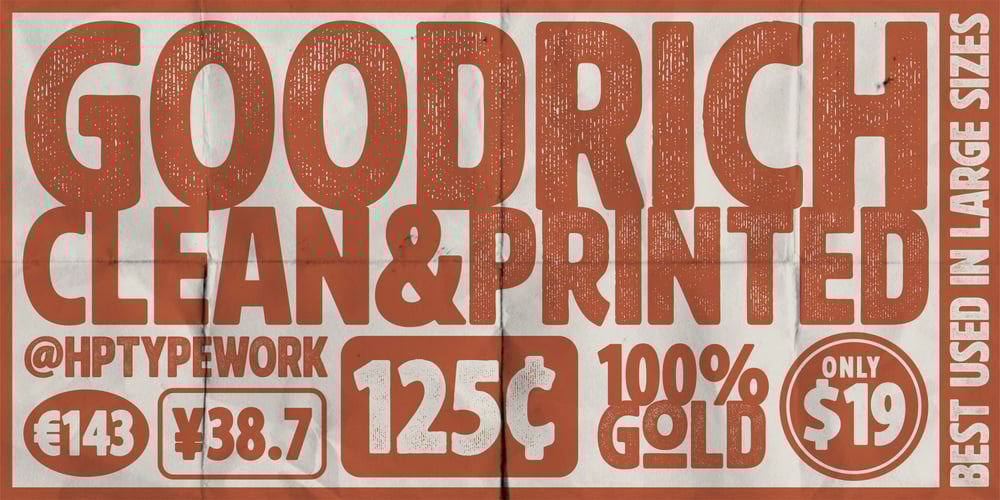
Goodrich Font Family was designed by Hendra Pratama and published by Hendra Pratama. Goodrich contains 2 styles and family package options. WARNING! Roughed version is quite heavy to open. Highly recommended to install the font without previewing it first.GOODRICH come in 2 different styles, with same character; Bold & Strong, and can evoke a different emotions. It comes in both clean and rough styles in only Uppercase Latin characters.When choosing a font, it’s important to consider the visual theme of your design. A clean bold fonts can lend a more stronger tone to your design, making it a great choice for Logo or Title. On the other hand, a textured fonts can lend a more natural printed-looks, making them perfect for designing 70s-80s themed parties. It can be used for various design purposes ; Posters, Logos, Packaging, Books or Movie Titles.In summary, these fonts are versatile and can add a unique look to any design project. If you want to add a touch of nostalgia and elegance to your designs, these fonts were timeless asset. With plenty of vintage and retro design resources available, it’s easy to find the perfect ideas for your next project.